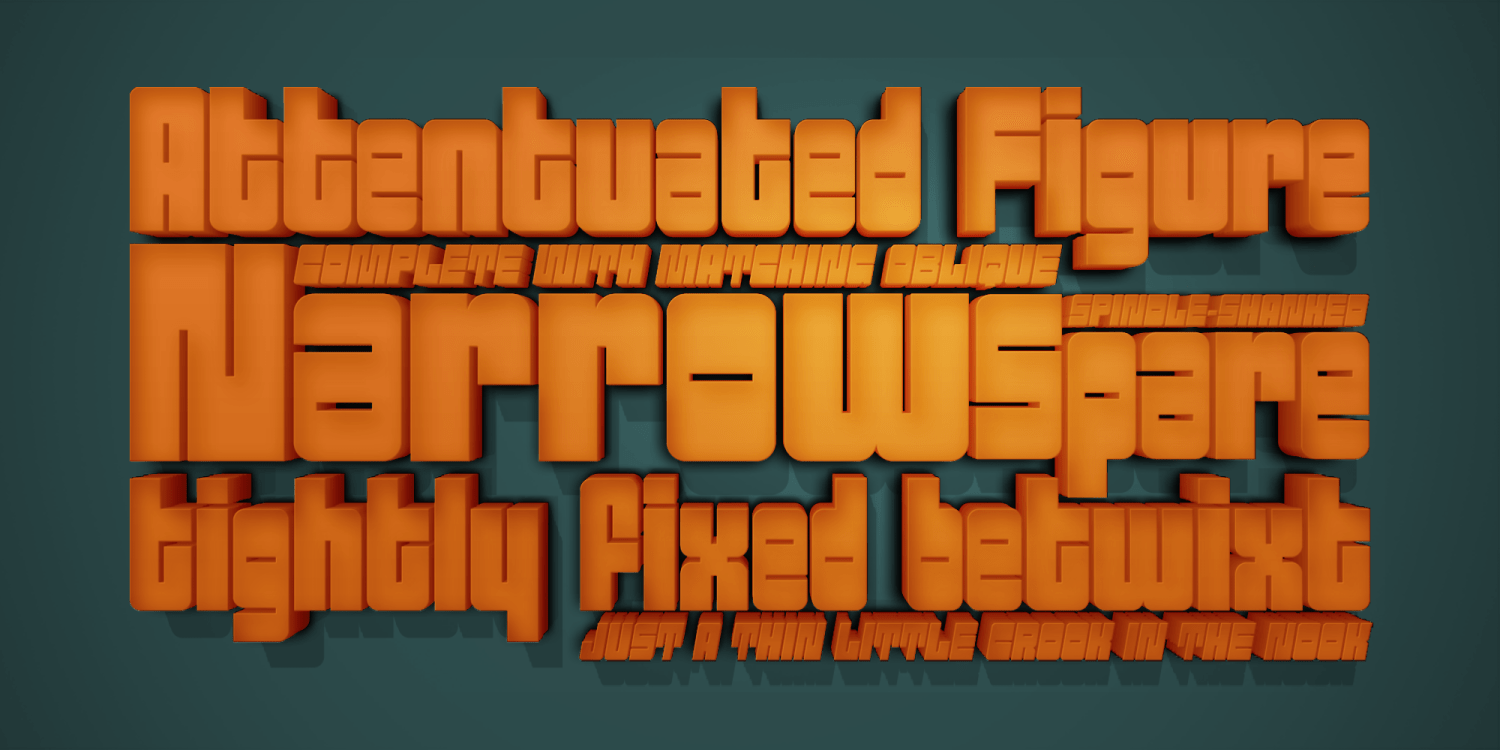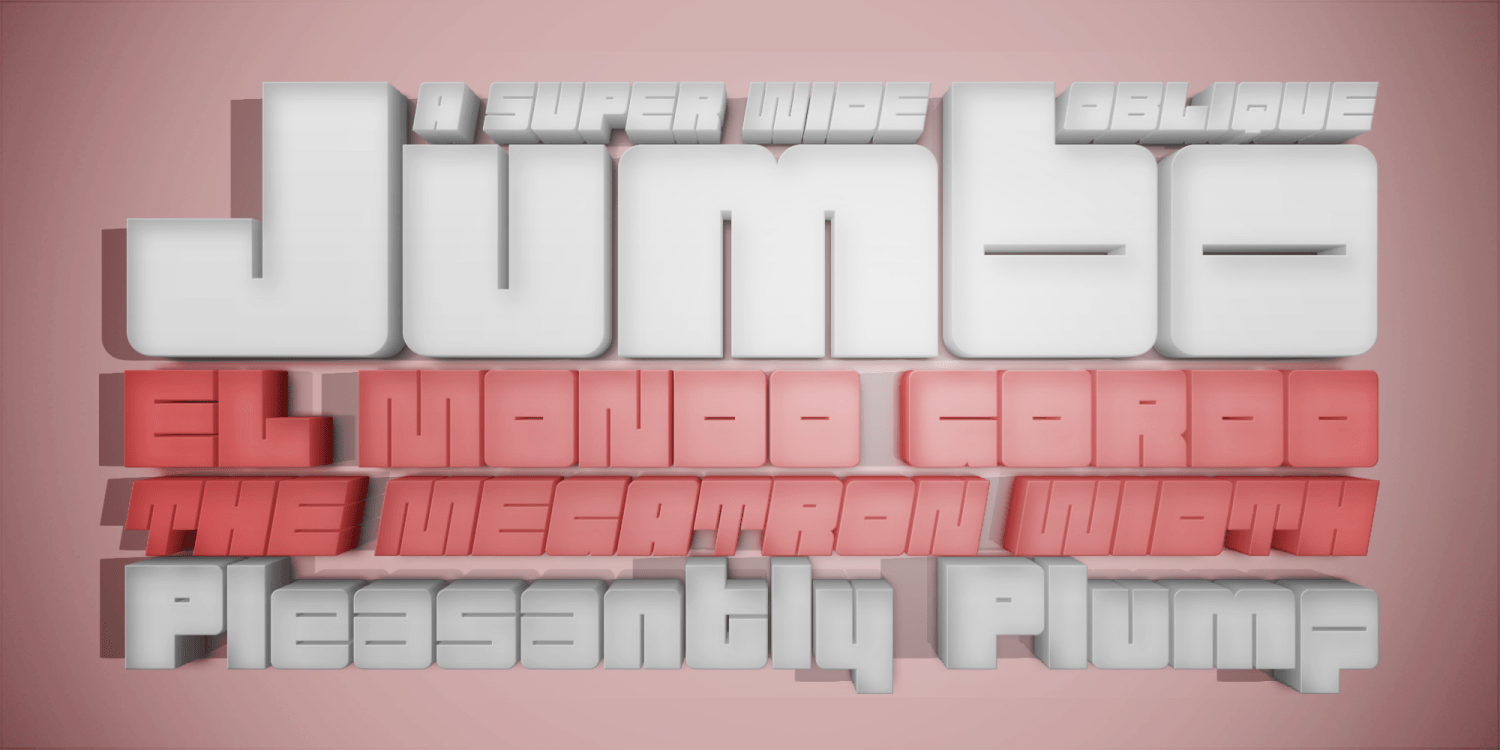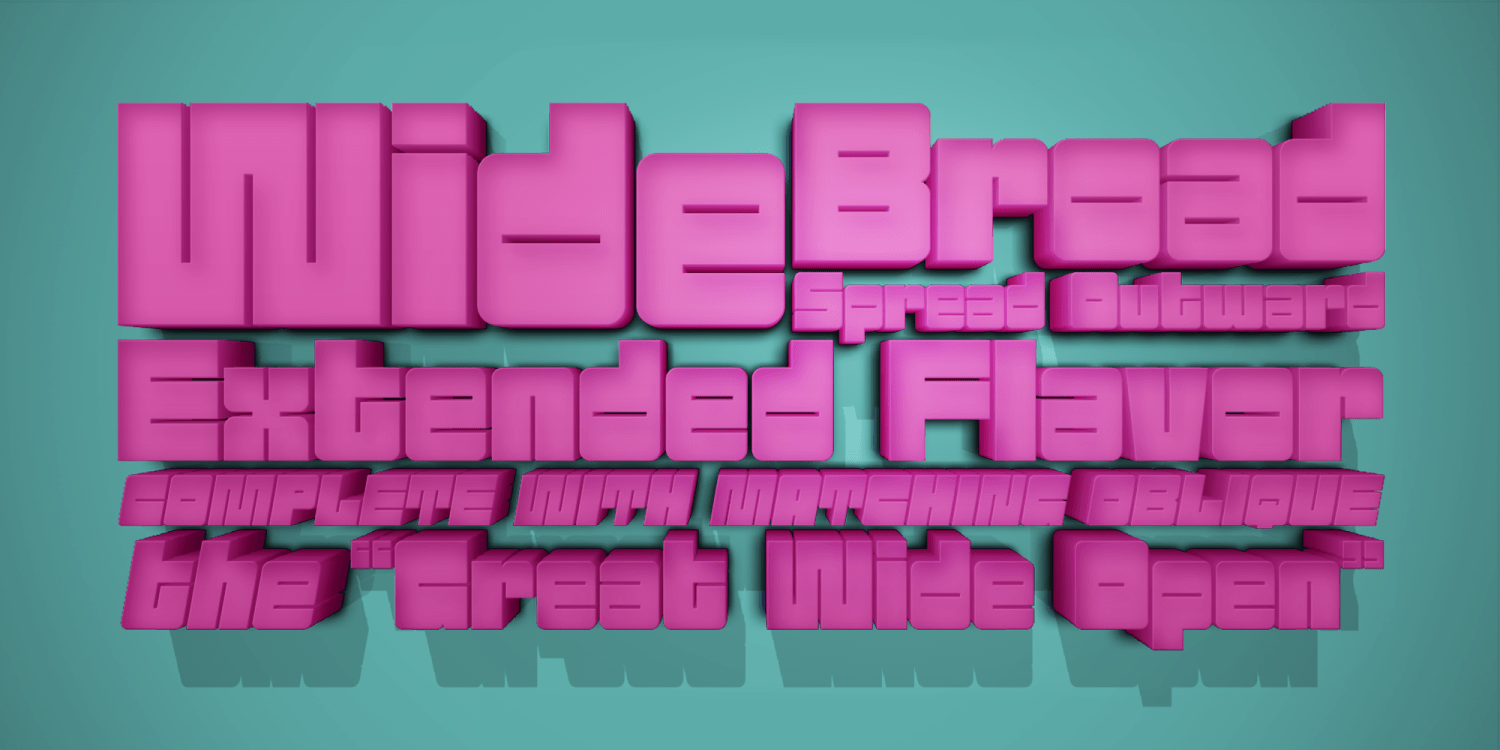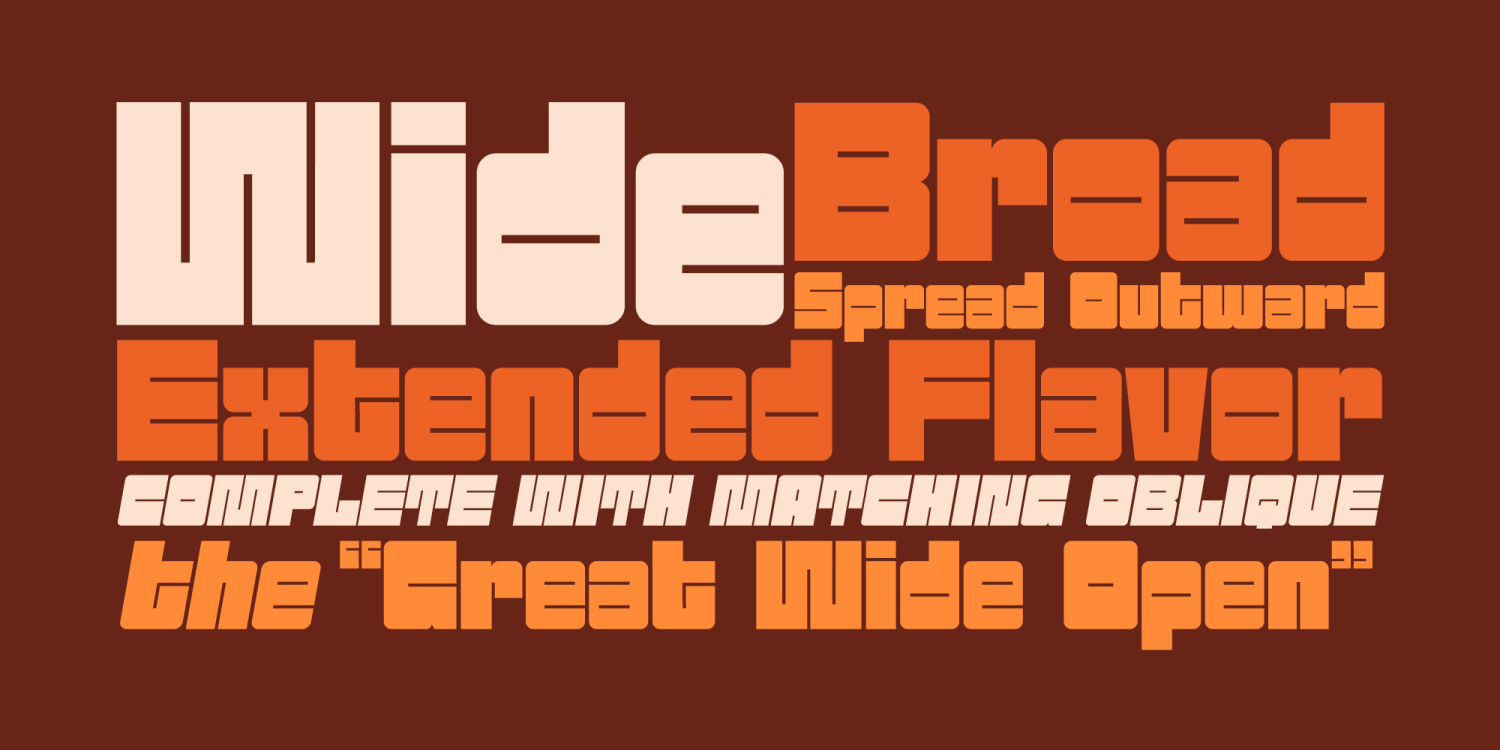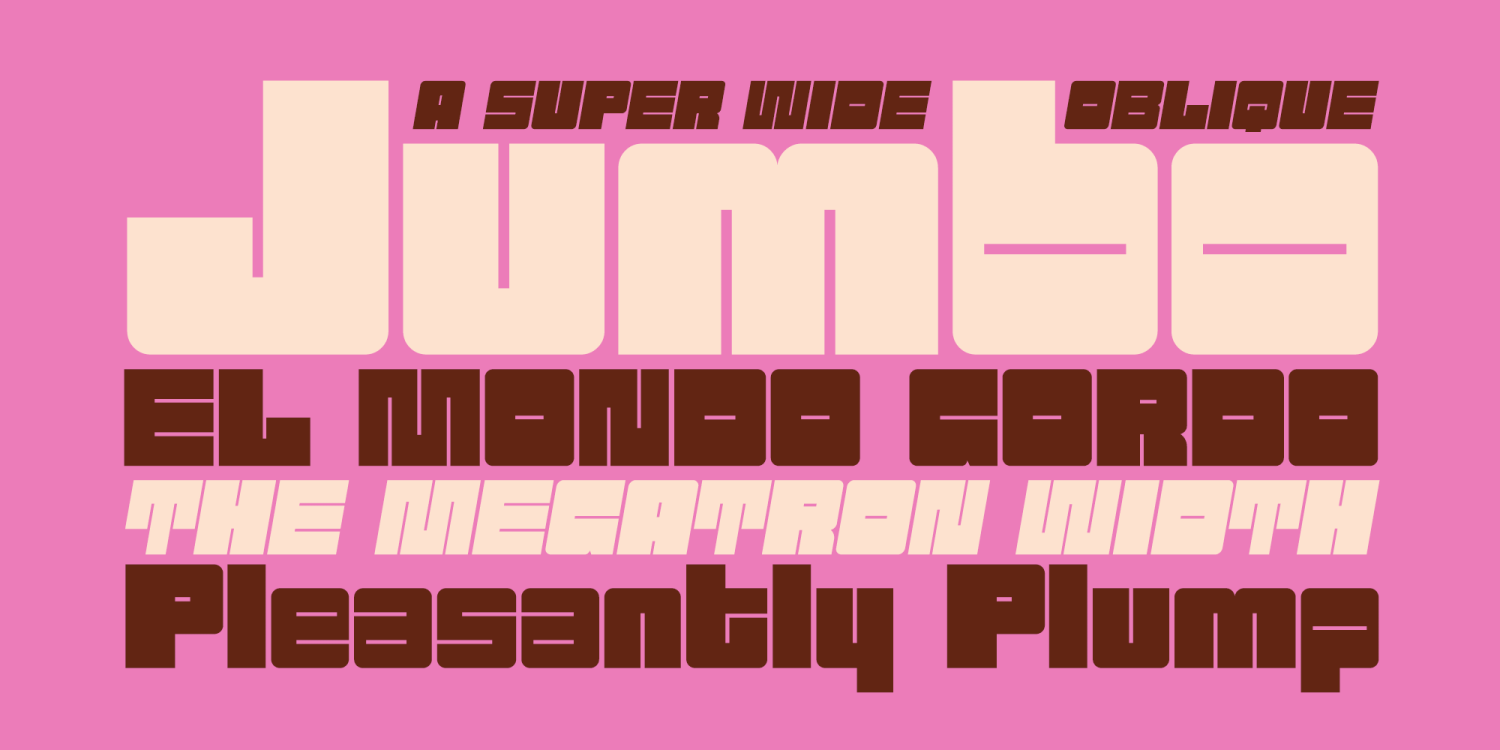
About Sackem PB
There's just nothing quite like a heavyweight geometric typestyle with tiny counters, you just love it like the Bee Gees. Sackem started as a digitization of a singular film typeface called Benman Jumbo by Lettergraphics. From there, this mechanical typeface was expanded into a 10 font family of playful widths and obliques: from the condensed 'Slim' style to the original referenced 'Jumbo' style.
10 Styles Included
Narrow
Narrow Oblique
Slim
Slim Oblique
Regular
Oblique
Wide
Wide Oblique
Jumbo
Jumbo Oblique